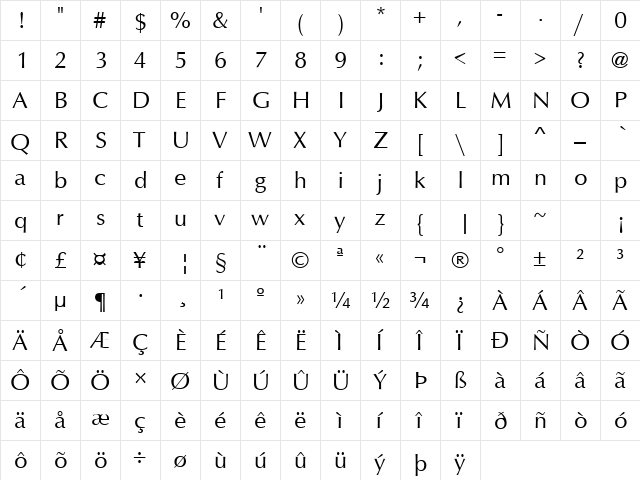
Optimum Regular
Design Context for Optimum Typeface
Optimum takes a measured approach to typography — its balanced proportions and neutral character make it a reliable workhorse for both digital and print work.